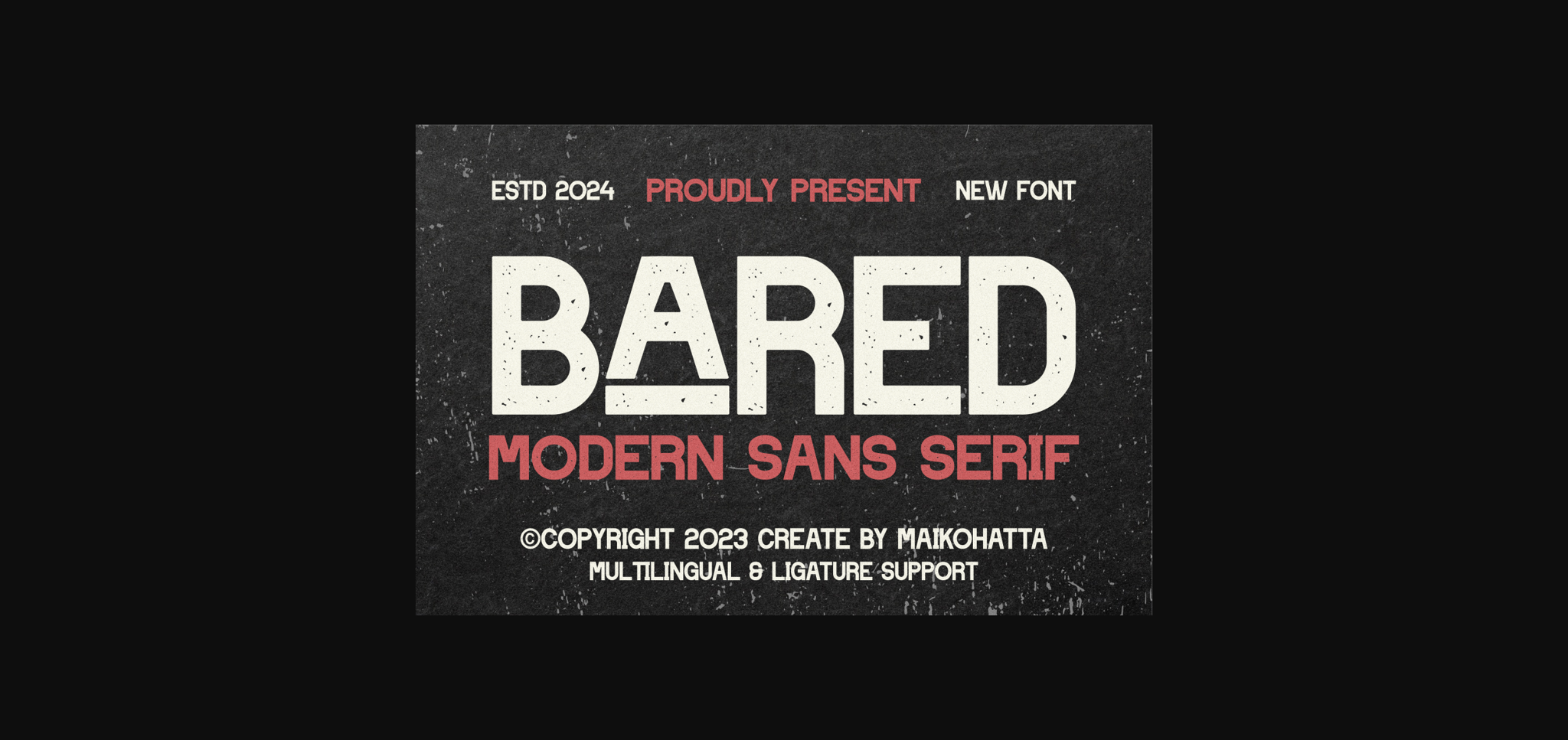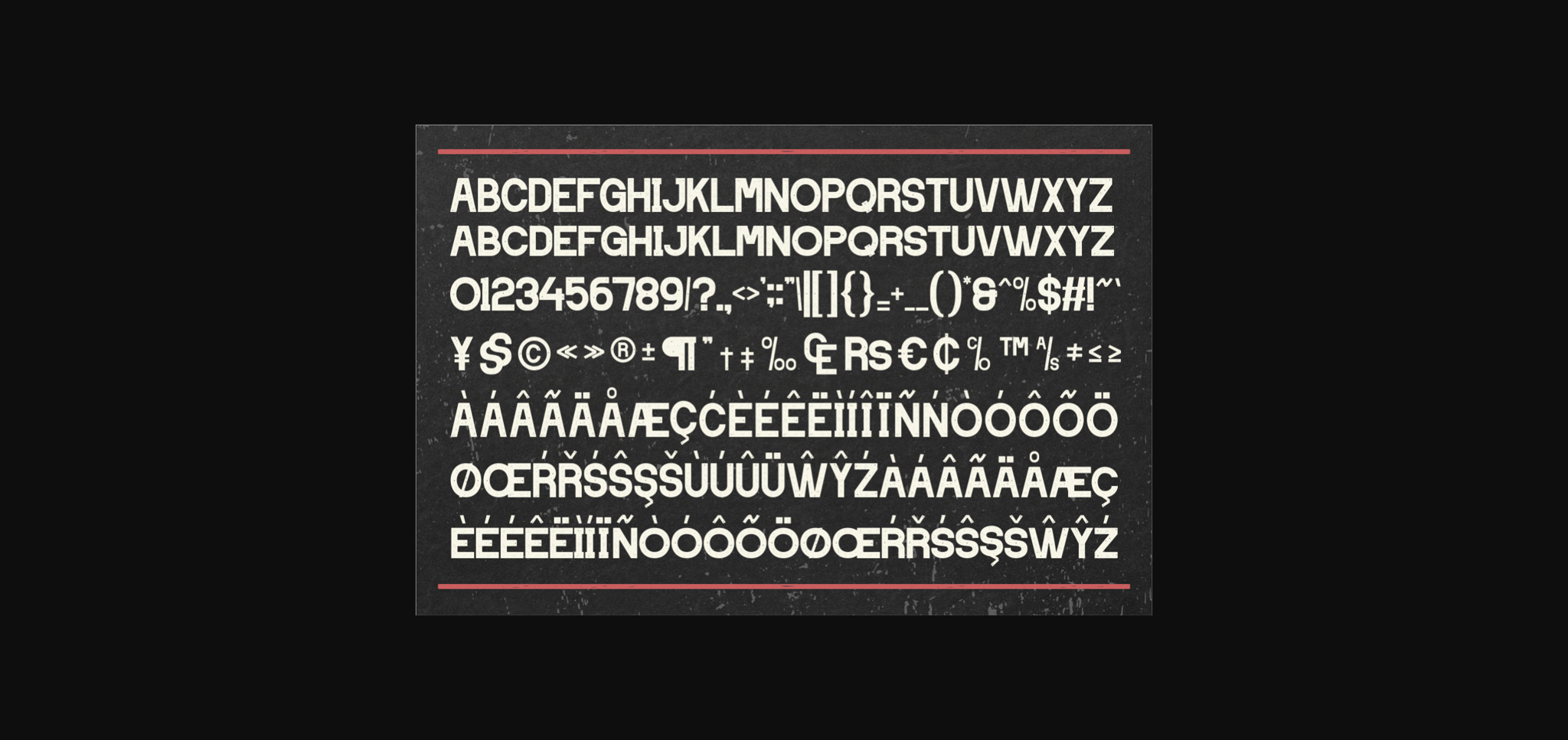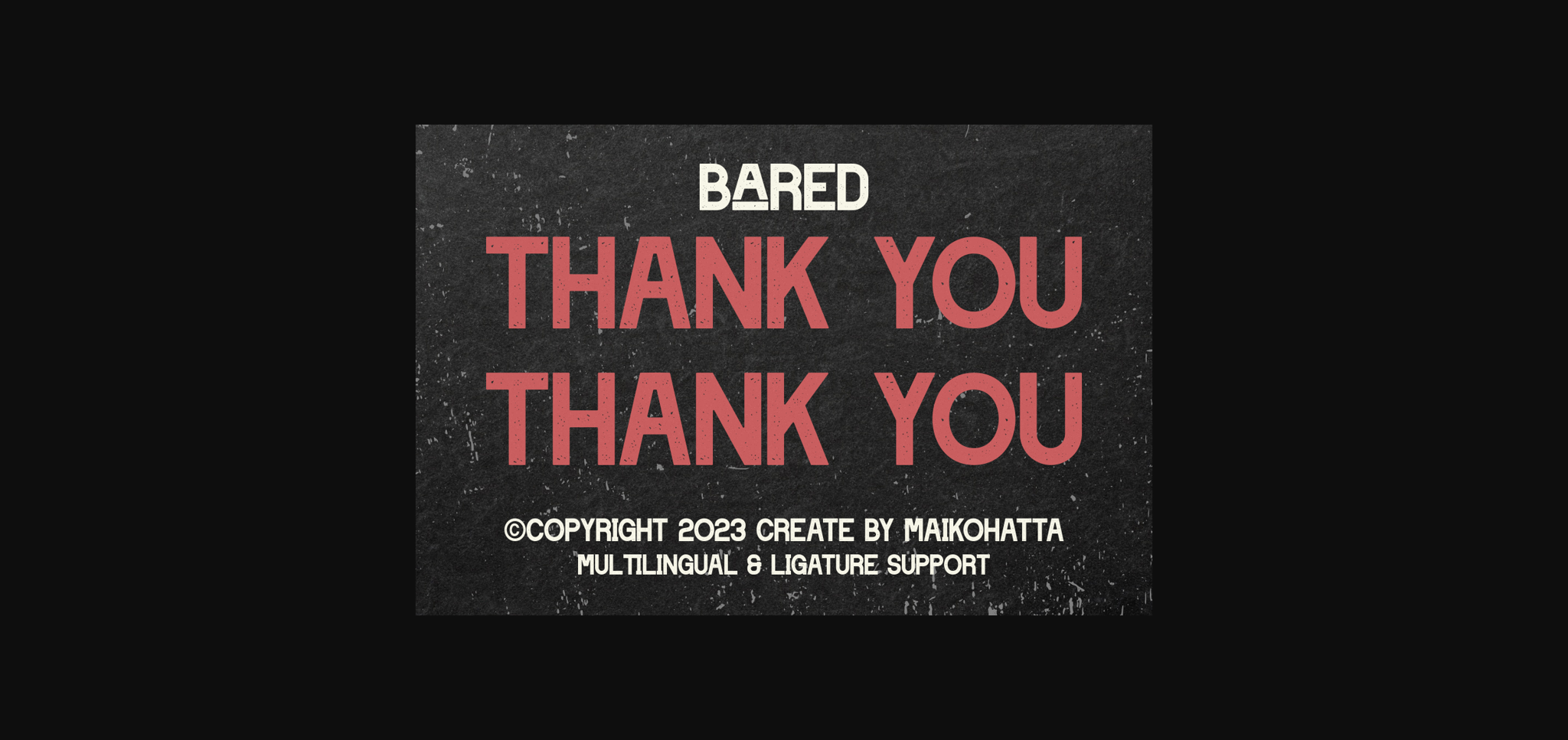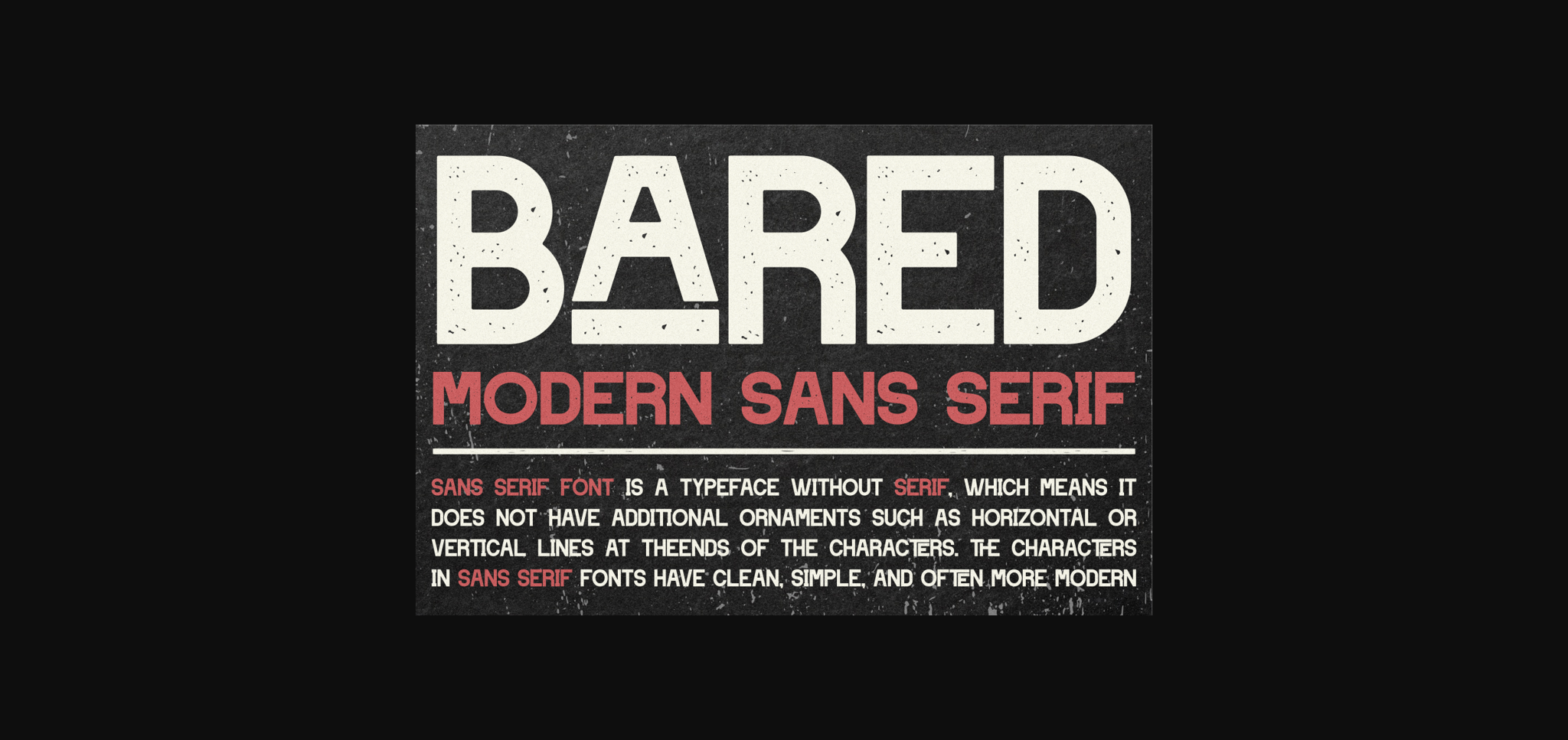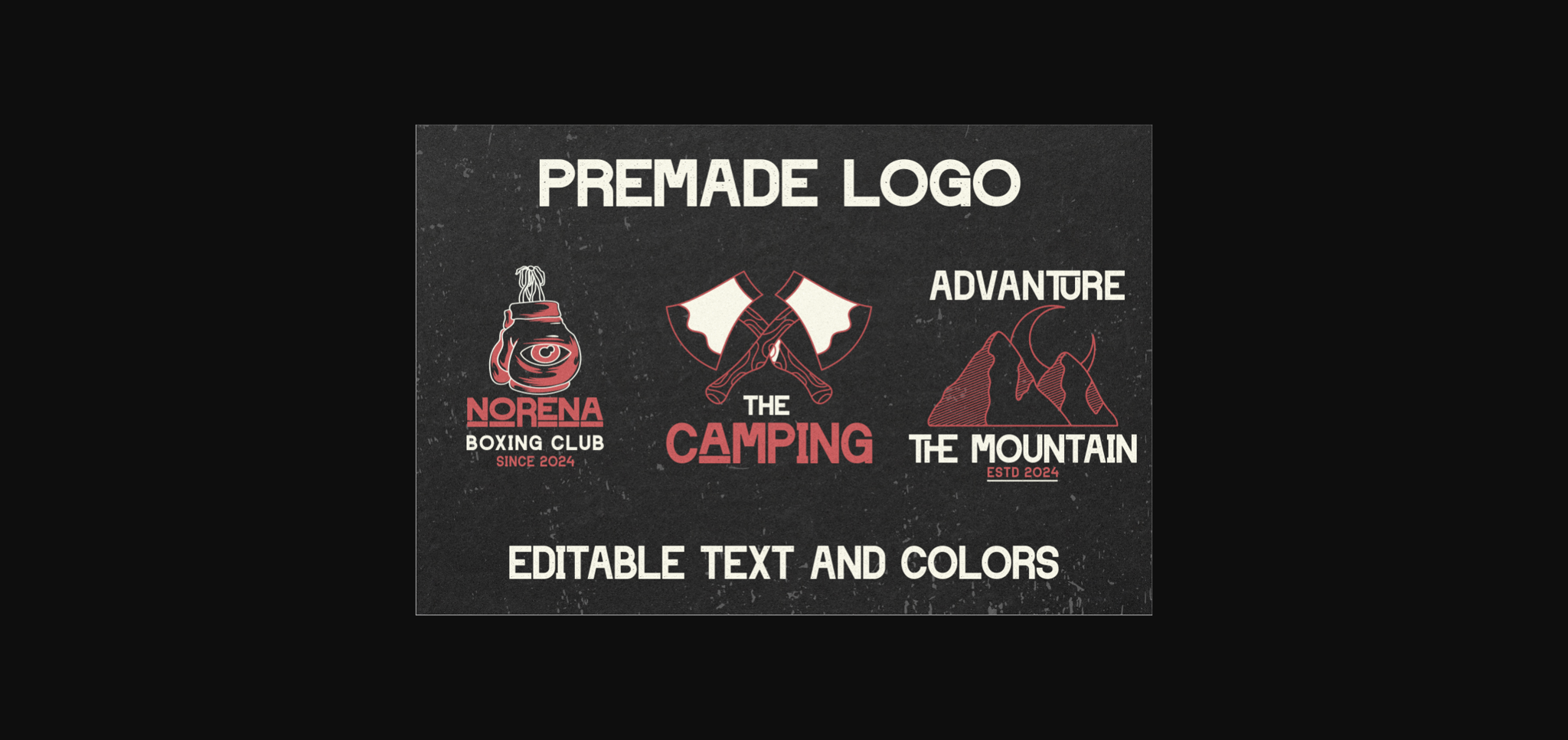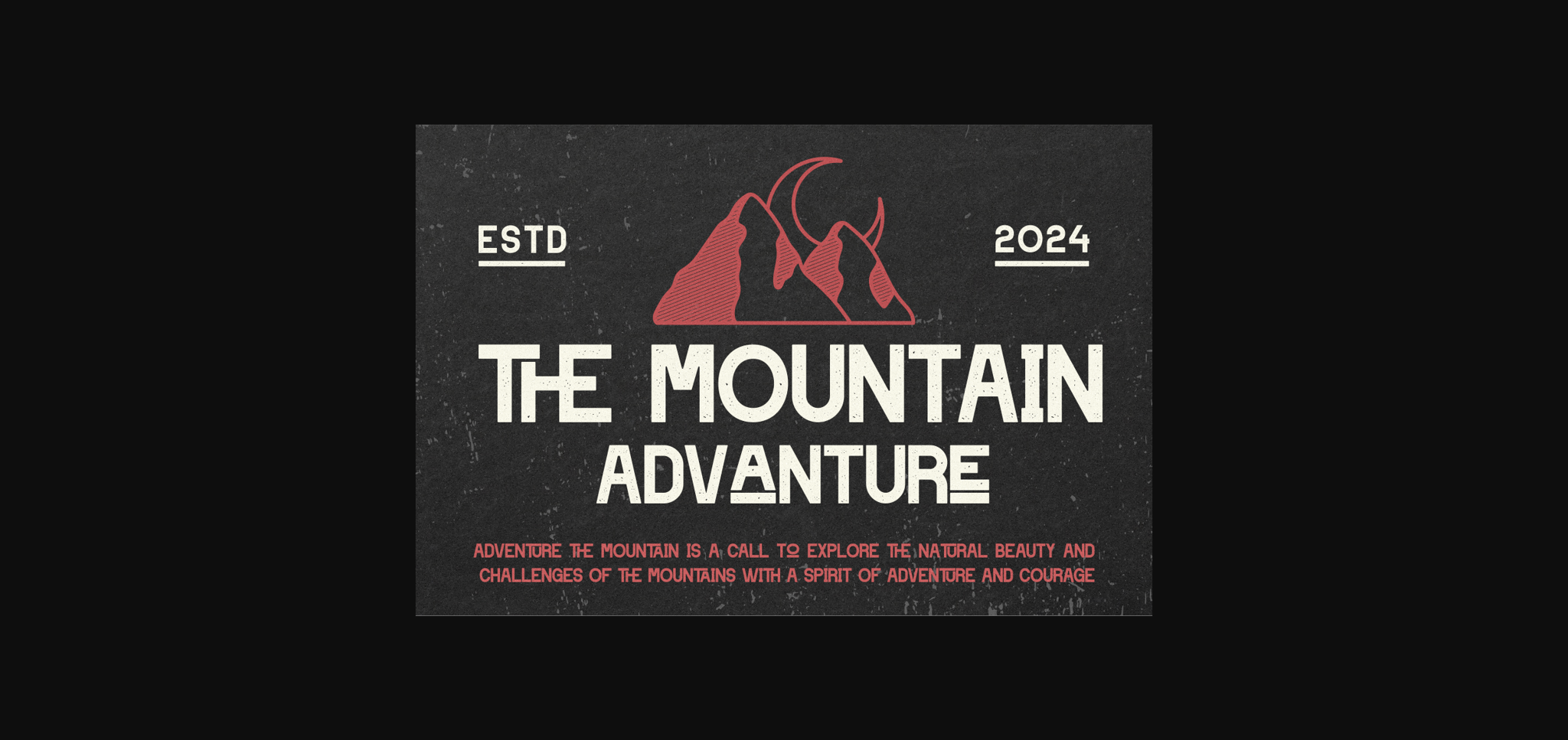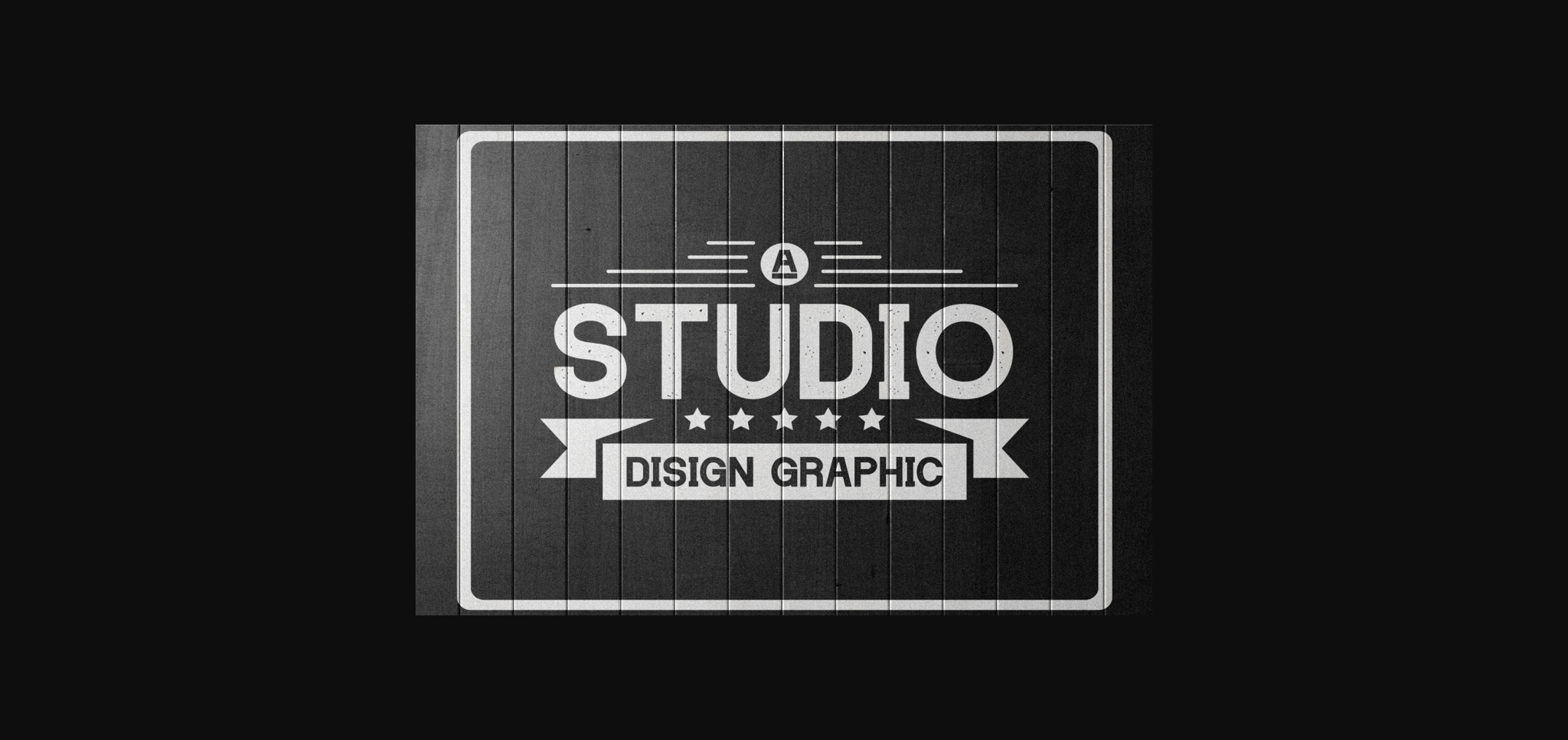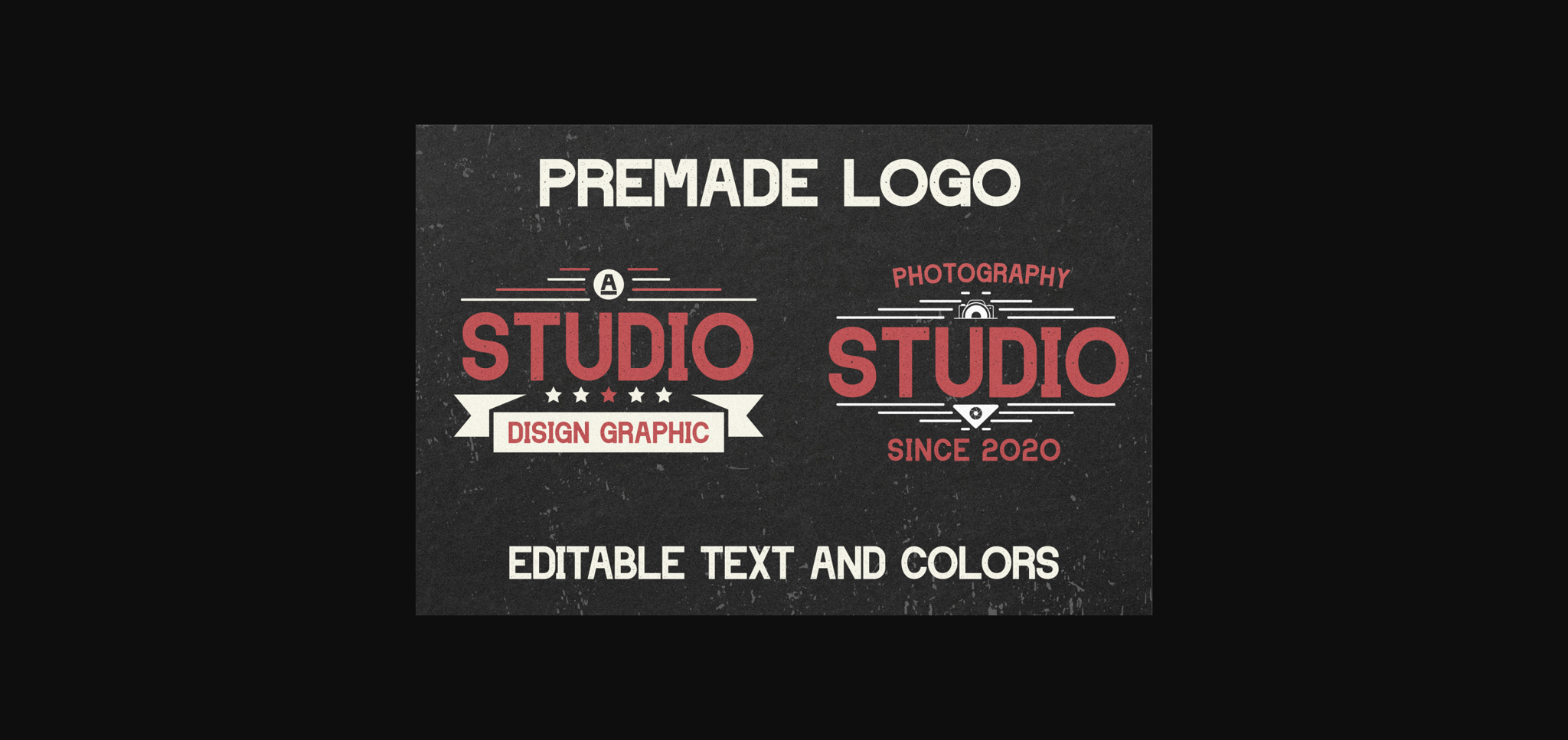
Bared Font
About Bared Font
Introducing our new product **Bared** Modern Sans Serif Font
**Bared** Modern Sans Serif Font is a bold and authentic display font. The font is suitable for any branding project like logo, Template Design, esport, and many more. outstanding in a wide range of contexts.